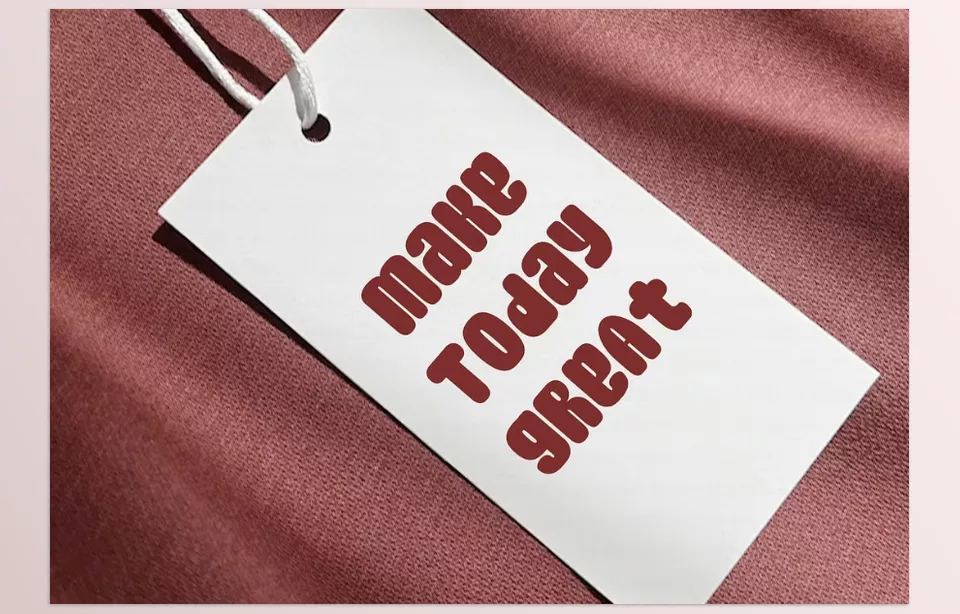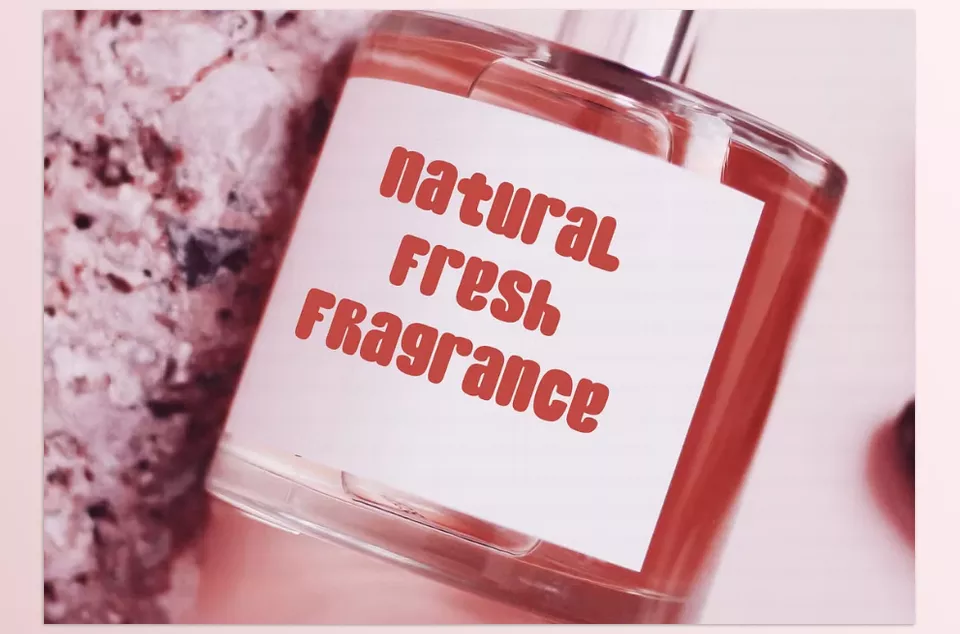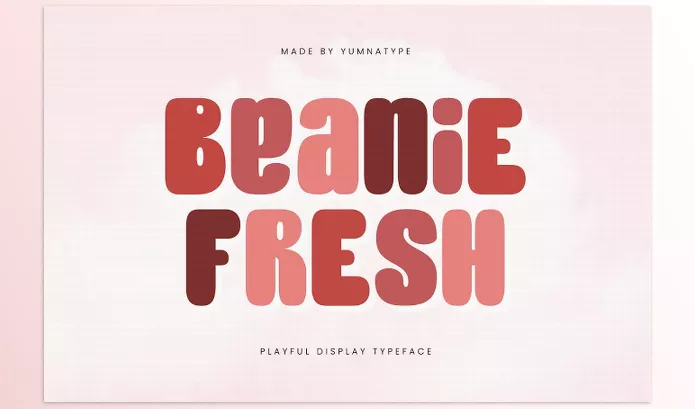
Beanie Fresh is a lovely display font with pleasing traits due to its comical personality, blending charm and feeling. Its extensive, rounded letterforms and thick weight give it a friendly and warm look ideal for design projects. This product supports ligatures, multilingual languages, numbers, and punctuation, which enables everyone to use it across various platforms and makes it easy to read.
yumnatype – Beanie Fresh Features
• Playful Warmth: The welcoming feel of the font encompasses rounded edges and thick letters.
• Well Balanced: Ensures balance in composition which is great for short headers and longer paragraphs.
• Decoration: The font has ligatures allowing the addition of different creative design aspects which enhances productive creativity.
• International Use: The font can be used by many because it supports numerous languages.
Preview Beanie Fresh
Image 1: A delightful display font that radiates warmth and charm with its playful style.
Beanie Fresh - a delightful display font that radiates warmth and charm with its playful style.
Image 2: Each letter in Beanie Fresh is meticulously designed with rounded shapes that add a soft and inviting vibe to your text.
Beanie Fresh - Each letter in Beanie Fresh is meticulously designed with rounded shapes that add a soft and inviting vibe to your text.